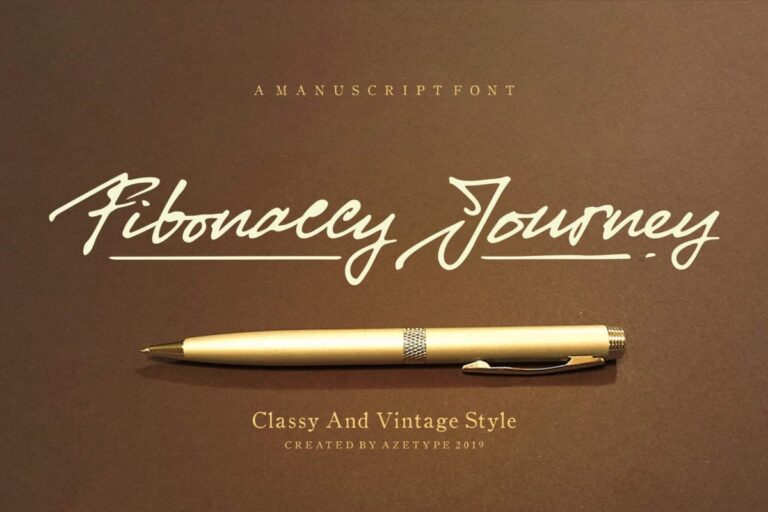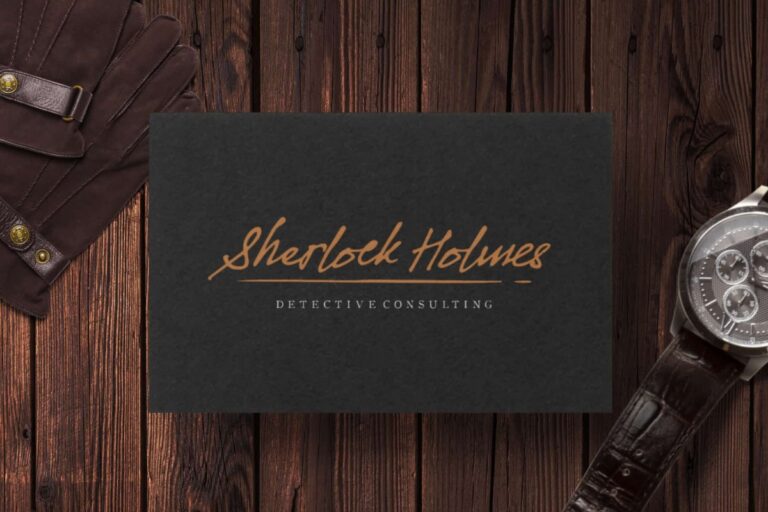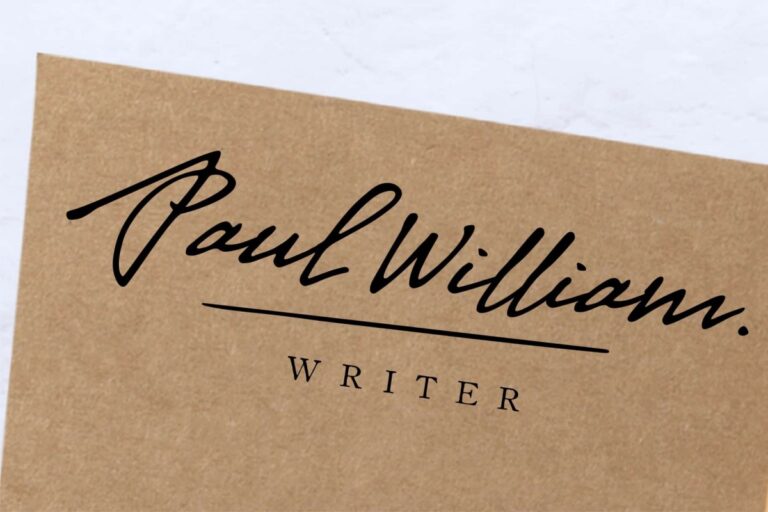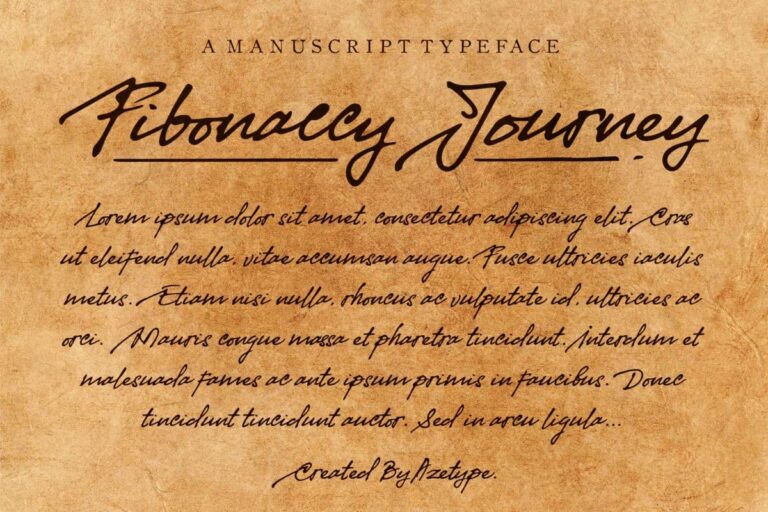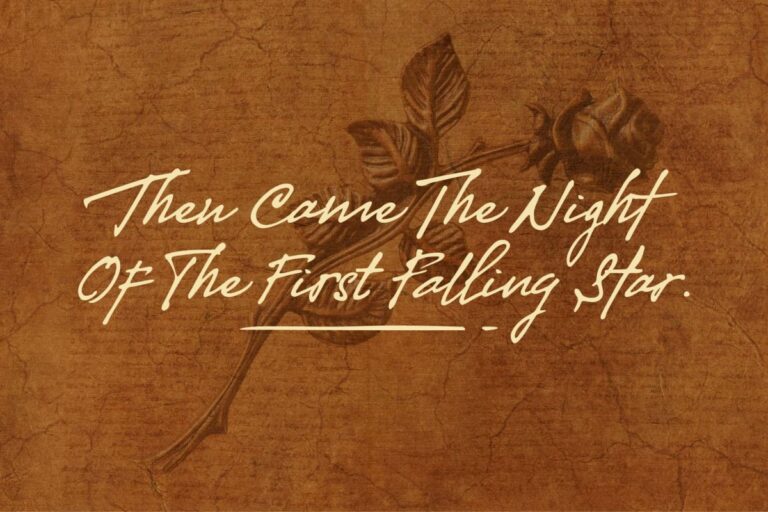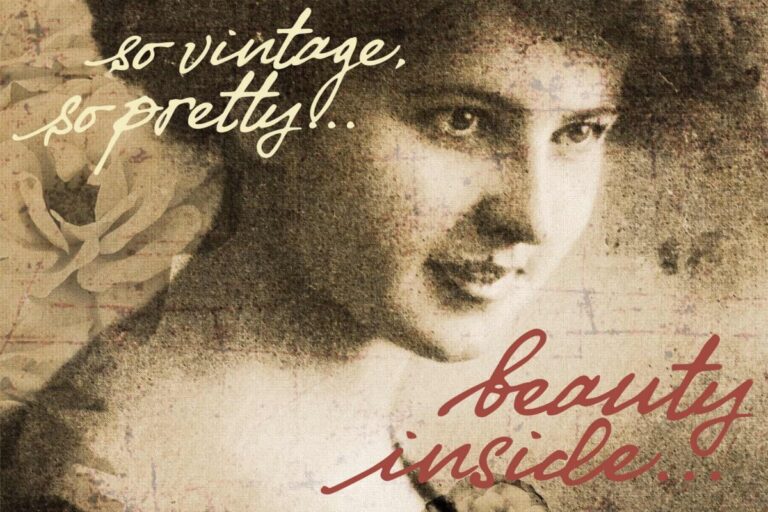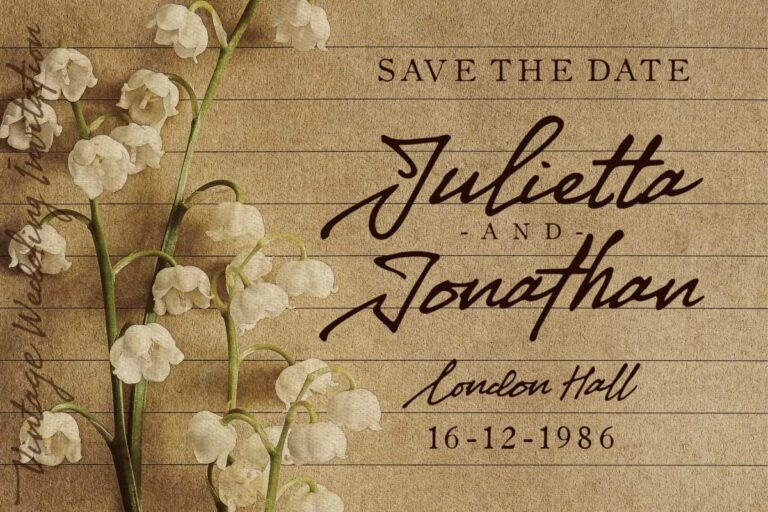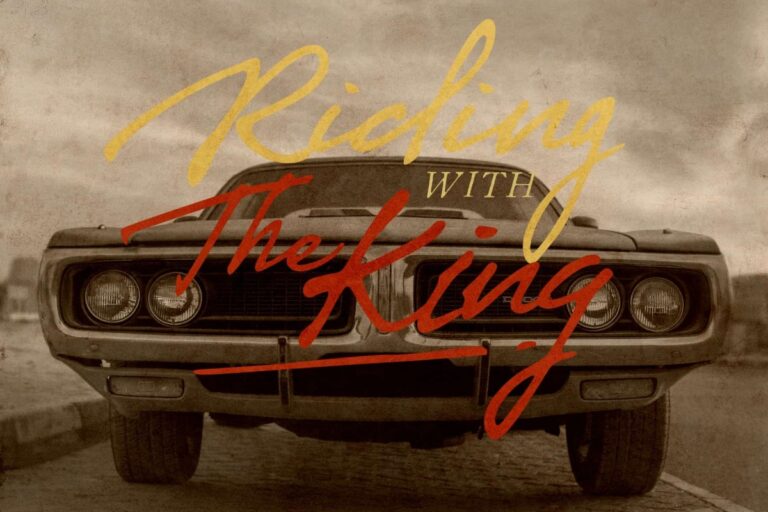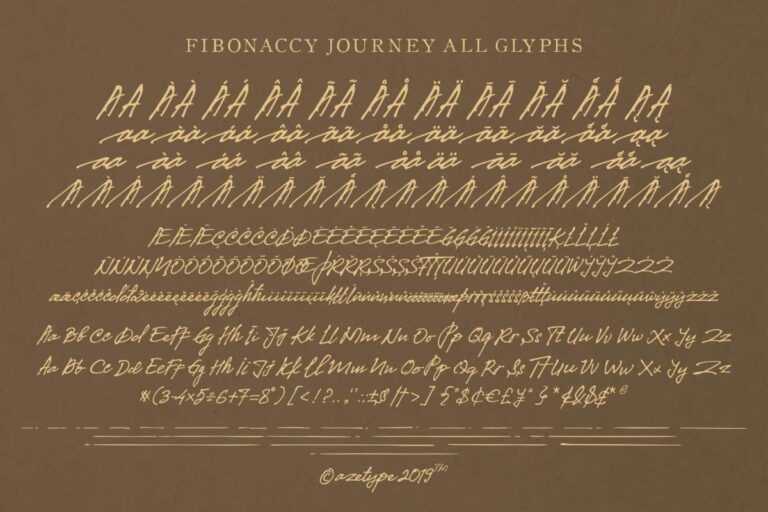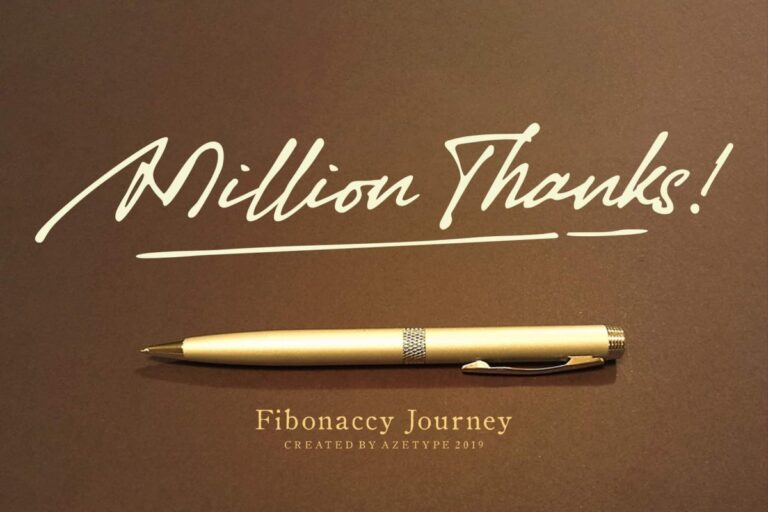
- Fibonaccy Journey
Presenting Fibonaccy Journey! A Manuscript Font crafted carefully. Based on original signature hand scratches that looks Classy and Vintage style. This font can be used at any time and any project. You can see in the presentation picture above, how it’s works!
So, this font can give a different touch to all your design projects e.g. watermark, quotes, logotype, poster design, personal branding, lettering, photography needs, blog header, wedding, letter, invitation, stationery,etc.
1. Fibonaccy Journey • This one comes with Standar Characters and 3 Stylistic Alternates (uppercase, lowercase) numeral, punctuation, symbols, and huge multilanguage support e.g. Afrikaans, Albanian, Catalan, Czech, Danish, Dutch, English, Estonian, Finnish, French, German, Hungarian, Icelandic, Indonesian, Italian, Latvian, Lithuanian, Maltese, Malay, Norwegian, Polish, Portugese, Spanisch, Slovak, Slovenian, Swedish, Zulu, and Many More).
2. Fibonaccy Journey Swash • This One comes with underline swash that makes your design projects looks standout and classy. For feature, you just type A-Z or a-z, choose Swash version and than ready to use.